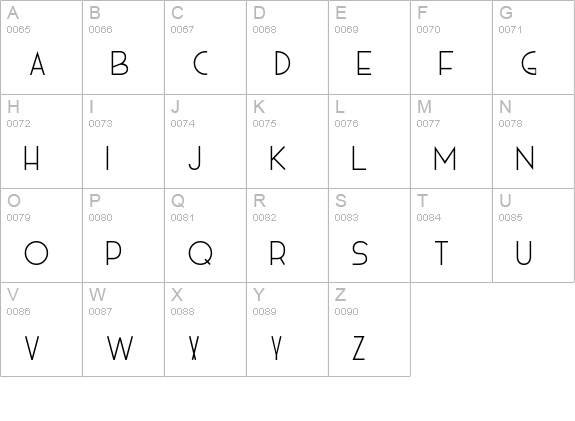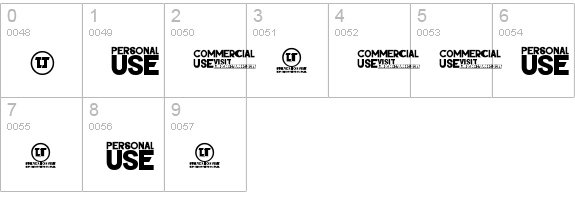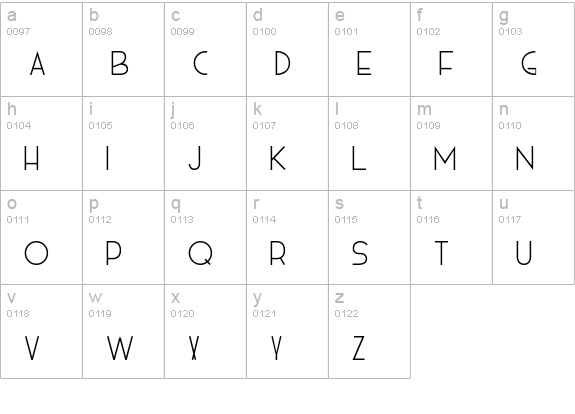
HIELO regular is the standard, neutral variant in the HIELO typeface family \xE2\x80\x94 well suited to general body text, paragraphs, and standard typographic work.
HIELO regular font is a timeless and versatile typeface that exudes elegance and sophistication. Its clean and balanced letterforms make it perfect for a wide range of design projects, from branding and advertising to editorial and digital applications. The HIELO regular font's sleek lines and subtle curves bring a modern yet classic touch to any composition, effortlessly capturing attention and conveying a sense of professionalism. It is meticulously crafted to ensure legibility and readability across various mediums, whether it's on print or digital screens. One of the standout features of HIELO regular font is its versatility. It seamlessly adapts to different design styles, allowing designers to create unique and captivating visuals. From bold headlines to delicate body text, this font effortlessly handles various typographic needs. What sets HIELO regular font apart is that it is not only visually stunning but also free to download. FontsMarket.com offers this font for free, making it accessible to designers, students, and enthusiasts alike. Its availability ensures that anyone can incorporate this beautiful typeface into their projects without any barriers. So, if you are looking for an elegant and versatile font that is freely available to download, look no further than HIELO regular font. With its timeless design and wide range of applications, it is the perfect choice to elevate your designs and make a lasting impression. Visit FontsMarket.com today and start exploring the endless possibilities with HIELO regular font.